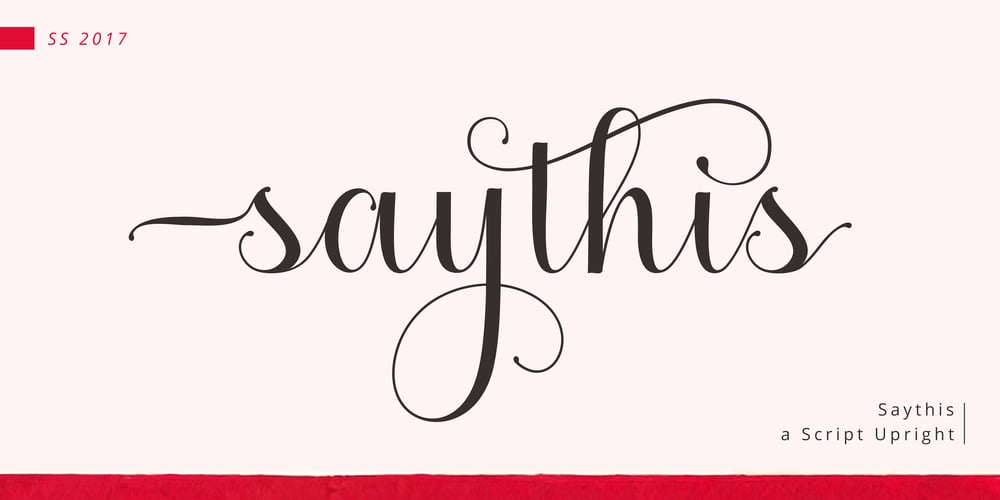
Saythis Script Font Family was designed by T. Marjan Bahraini and published by stiplinestudios. Saythis Script contains 1 styles and family package options. Saythis Script Upright is our latest product that need so much effort to create it. We research and do the best to make this font good for you. This is very suitable for beautiful logo, poster, magazine, photography and any other design project.Saythis Script Upright goes with Romantic and Elegant Upright Calligraphy, ready to give your design project with Fresh and Feminine Style. This font have an 264 Standard Glyph + 503 Glyph Alternate in Open Type Standard Format.